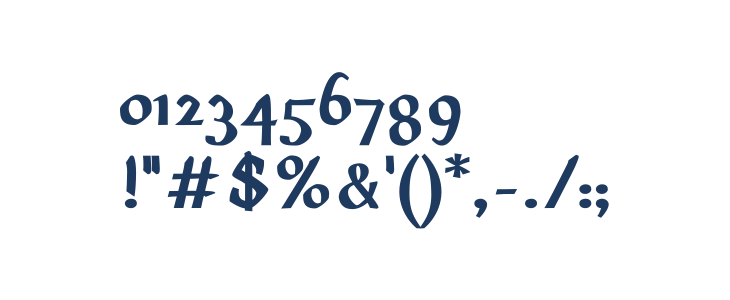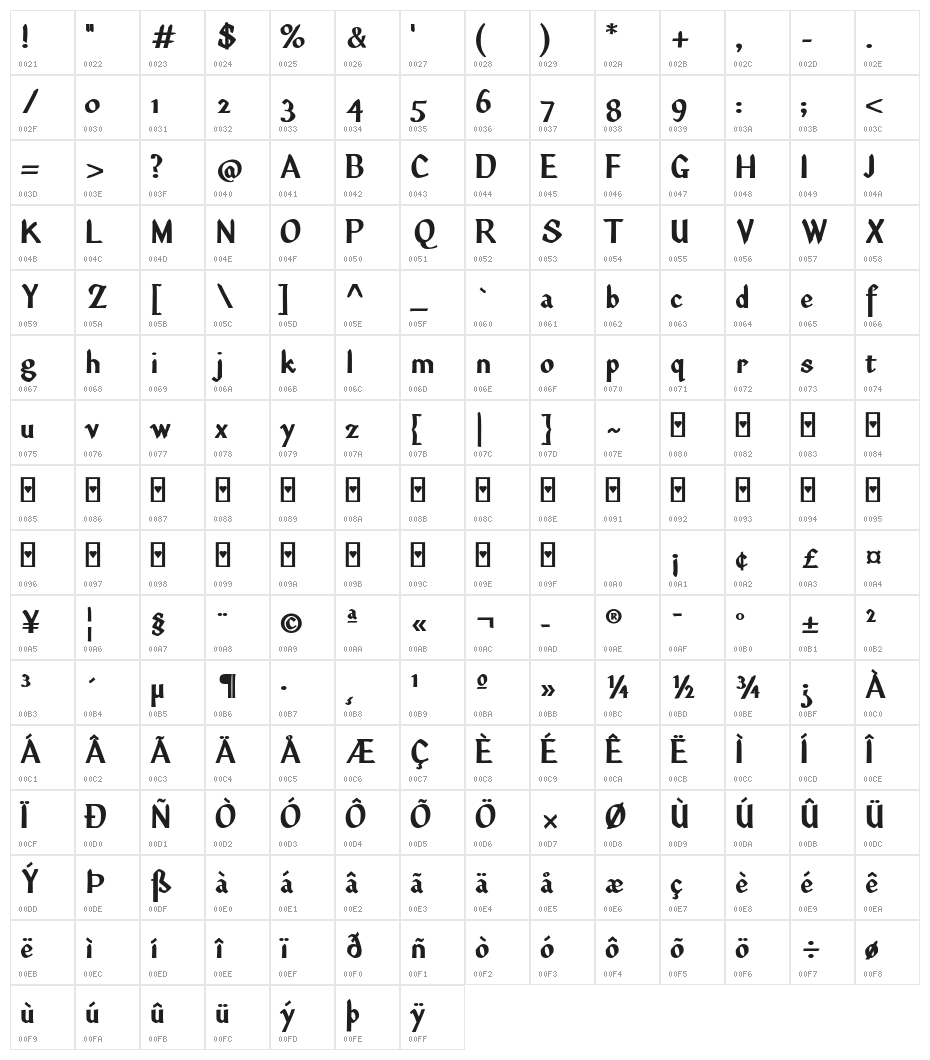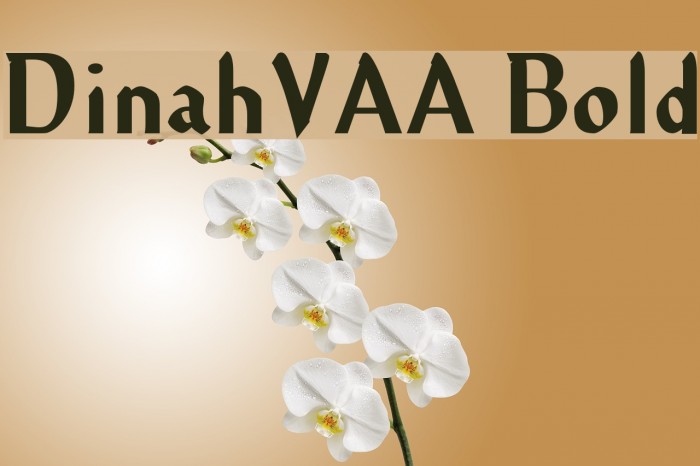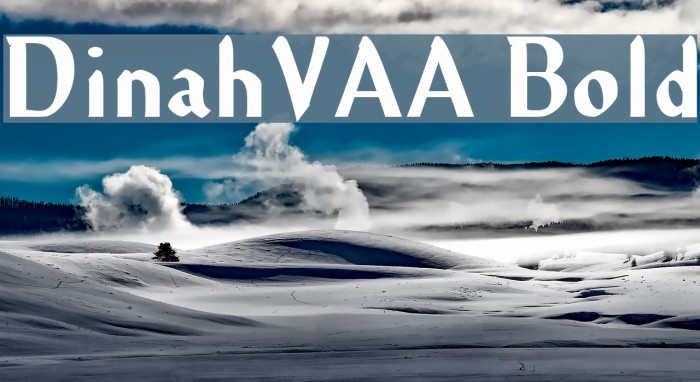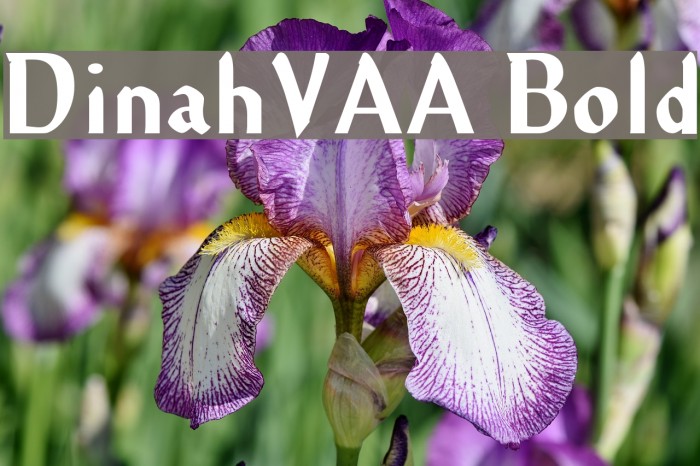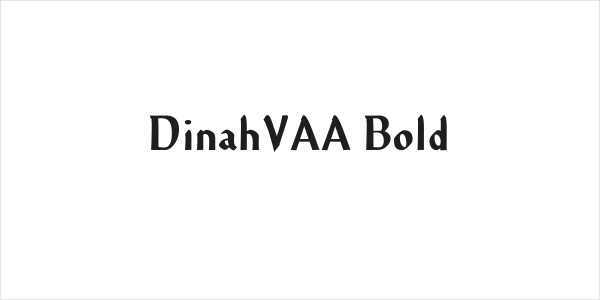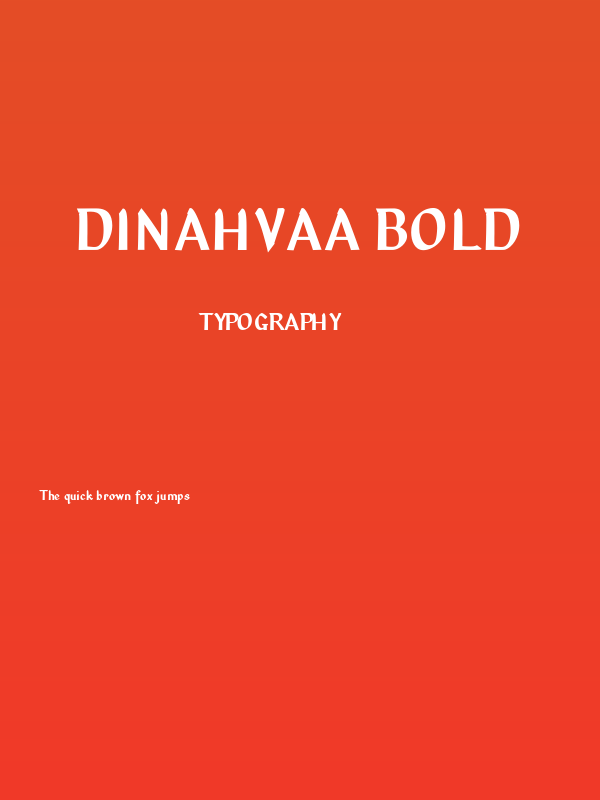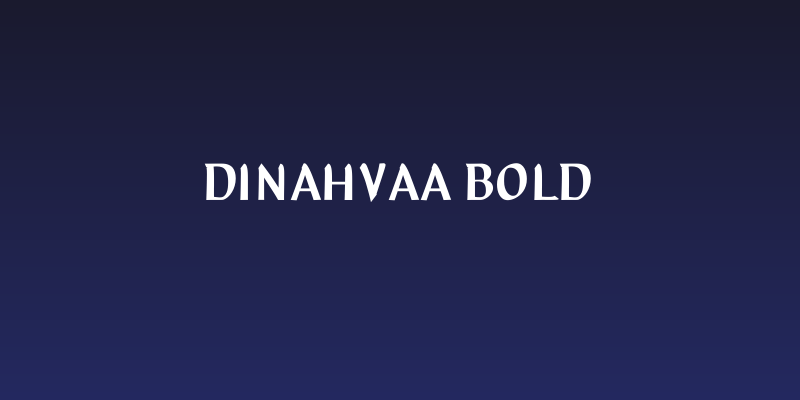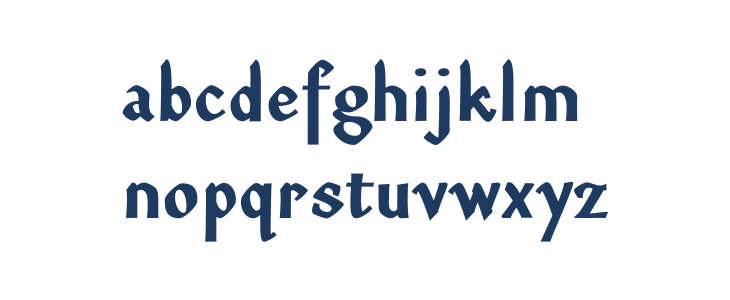
DinahVAA Bold Font
DinahVAA Bold Description
This typeface features a bold and dynamic style with a strong presence. The uppercase letters exhibit a slightly condensed form with sharp, angular serifs that add a touch of elegance and authority. The lowercase letters maintain a consistent boldness, with unique curves and angles that give the font a distinctive character. The numerals are robust and clear, ensuring readability while maintaining the overall aesthetic. Special characters are well-integrated, providing versatility for various design needs. The font's bold weight and unique style make it suitable for impactful headlines and branding.